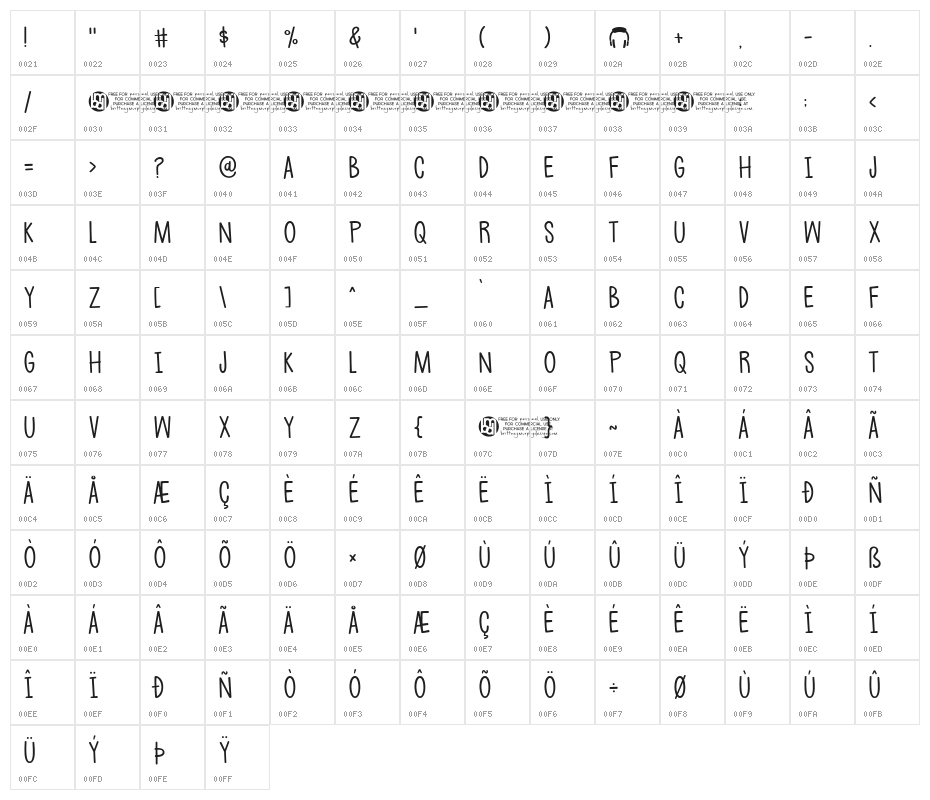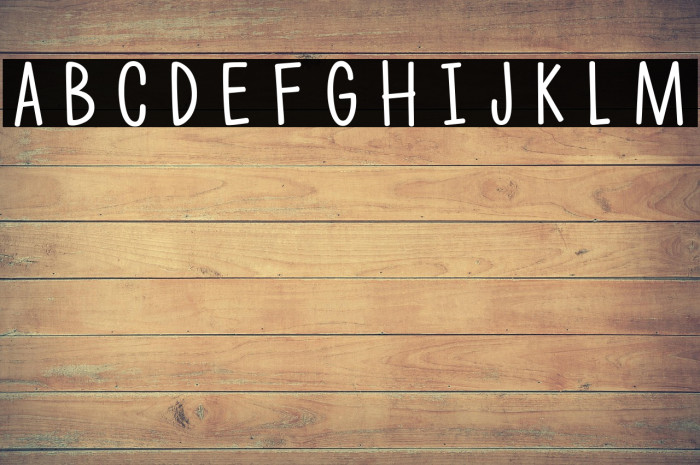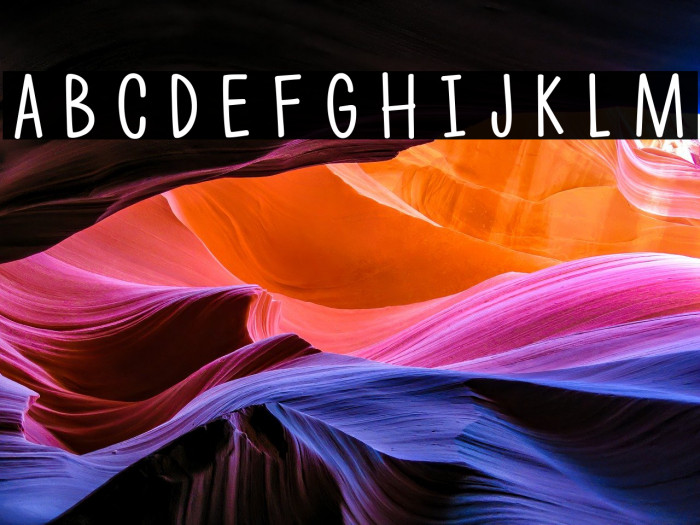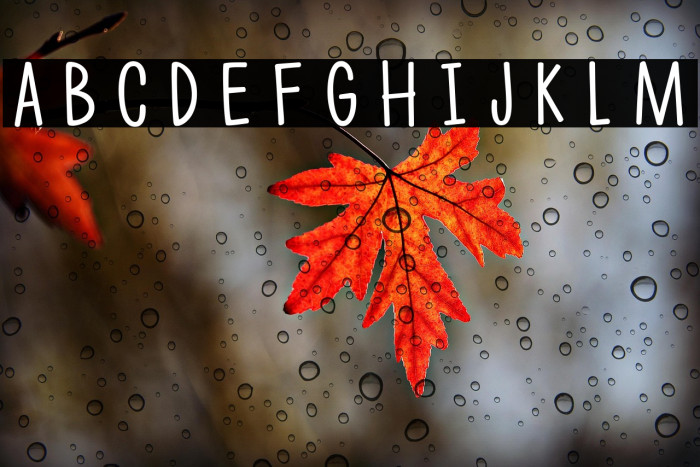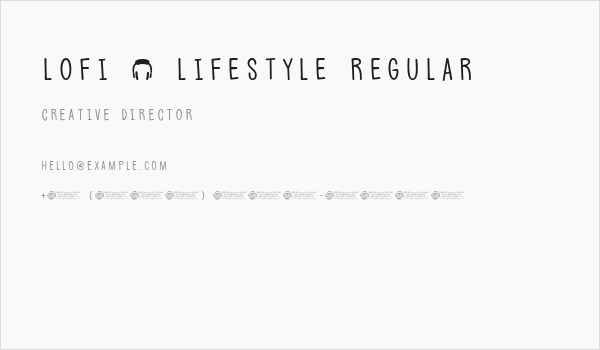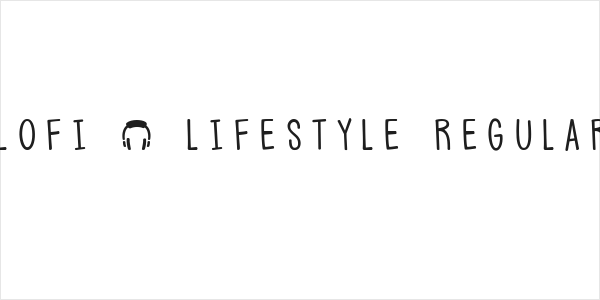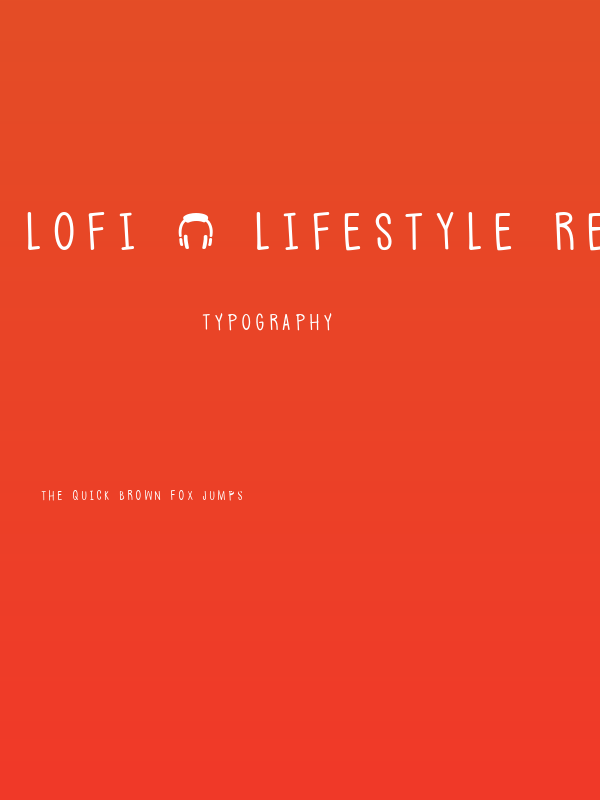
Lofi * Lifestyle Regular Font
Lofi * Lifestyle Regular Description
This font features a playful and casual handwritten style, characterized by its slightly irregular strokes and informal appearance. The letters have a natural flow, with a slight tilt that adds to the relaxed vibe. The uppercase and lowercase letters maintain a consistent style, with rounded edges and a friendly demeanor. The numbers and special characters are designed to match the overall aesthetic, making it versatile for various uses. The font's charm lies in its simplicity and approachability, making it suitable for projects that aim to convey warmth and friendliness.
| Proposed Projects | Ideal for personal projects, greeting cards, casual branding, social media graphics, and children's books. |